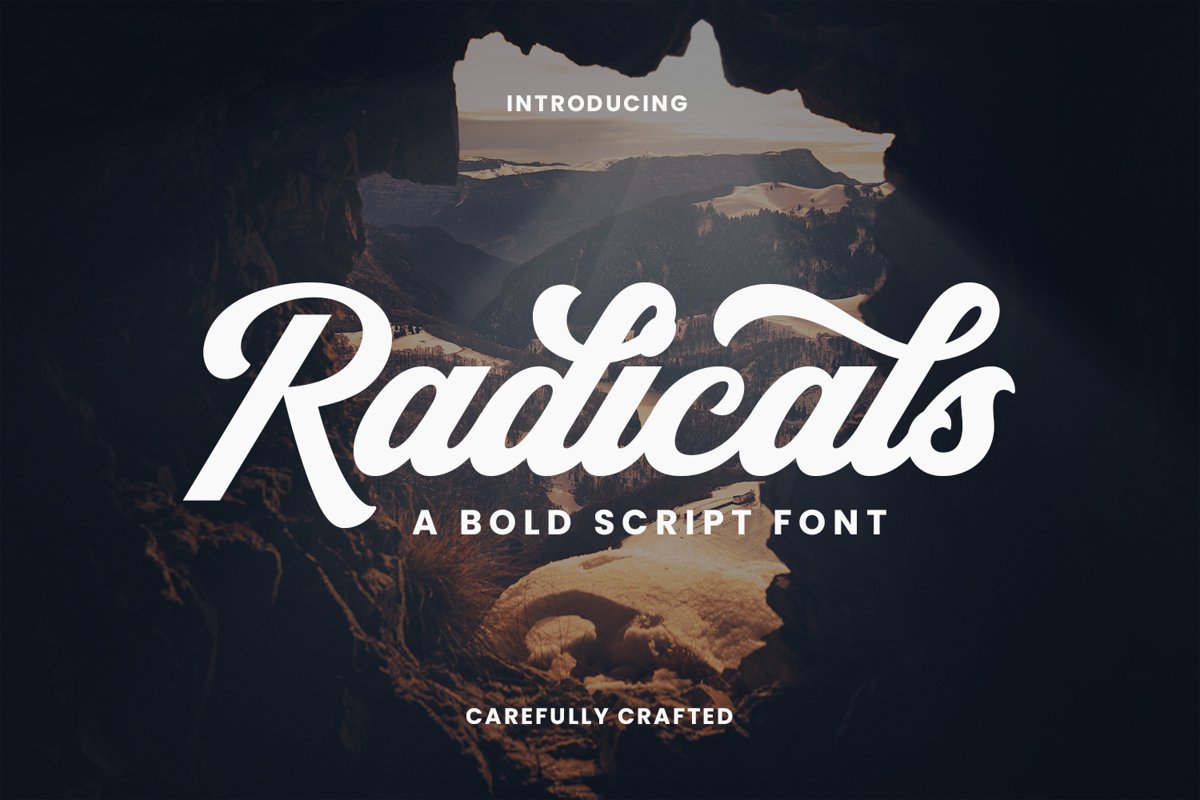
Radicals
Radicals is a bold script typeface. Perfect for your next creative project such as Logotype, printed quotes, invitations, cards, product packaging, headers, Letterhead, Poster, Apparel Design, Label, and etc.